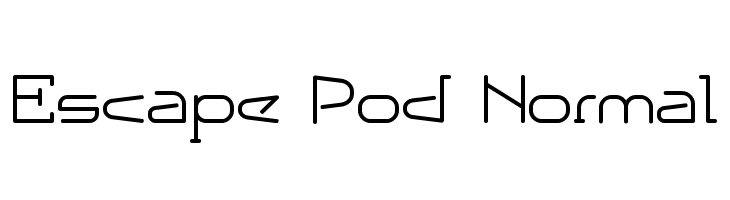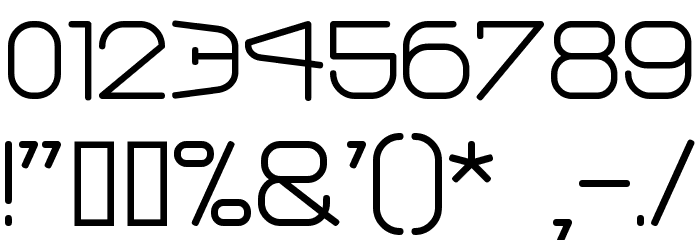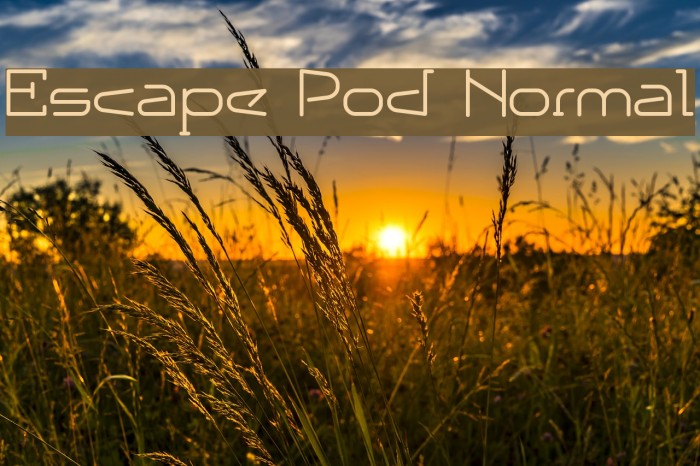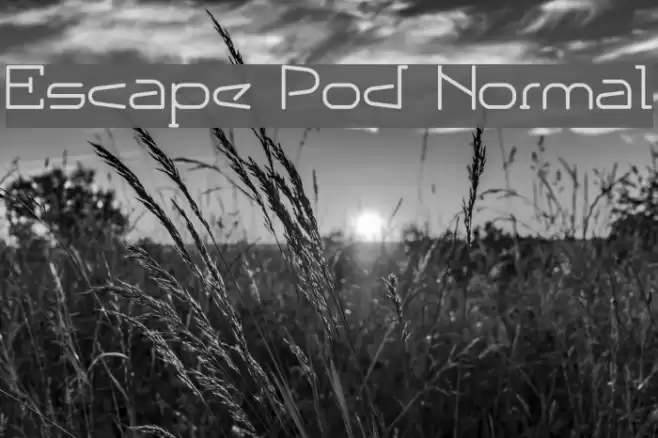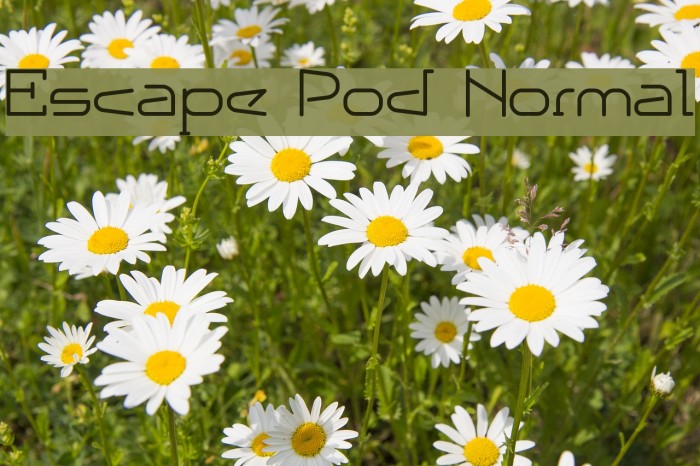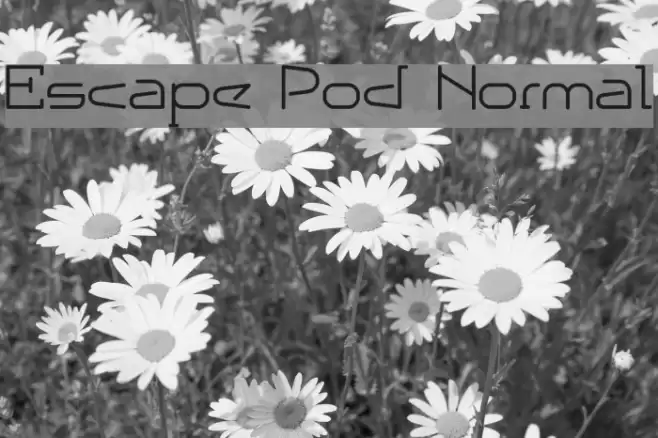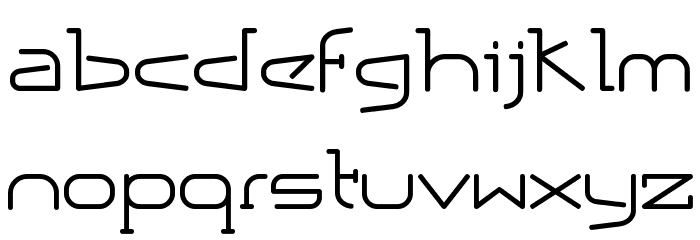
Escape Pod Normal Font
Escape Pod Normal Description
This font features a futuristic and geometric design, characterized by its angular and linear forms. The uppercase letters are distinct with sharp edges and a consistent stroke width, giving it a modern and technical appearance. The lowercase letters maintain the geometric theme, with a slightly softer approach, yet still retaining the angular aesthetic. Numbers and special characters follow the same design principles, ensuring uniformity across all glyphs. The overall look is sleek and minimalistic, making it suitable for contemporary design projects.
| Proposed Projects | Ideal for sci-fi themed designs, technology branding, modern posters, and digital interfaces. |